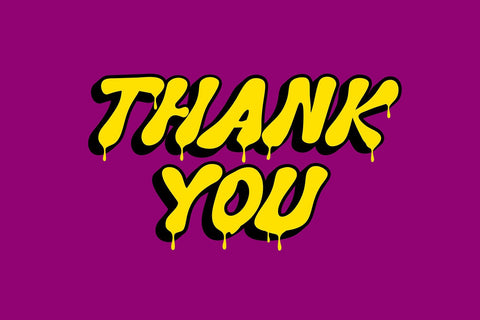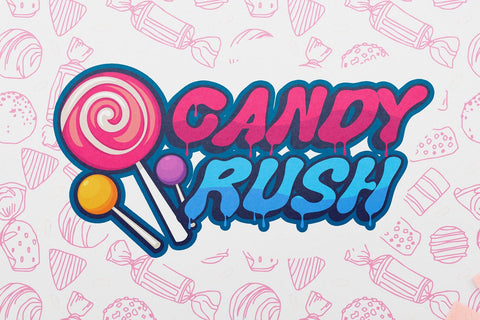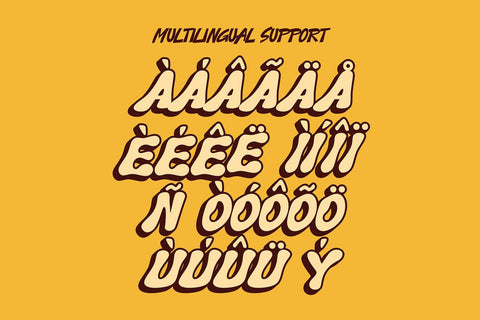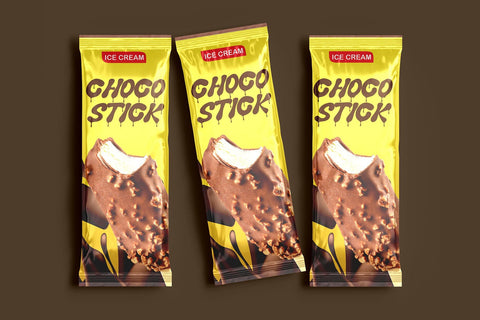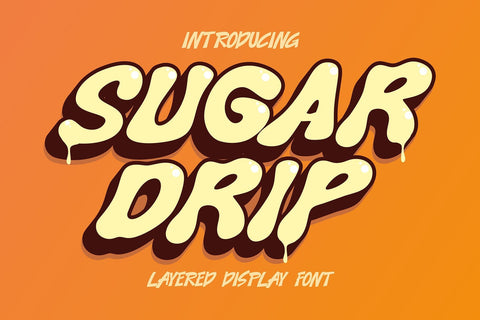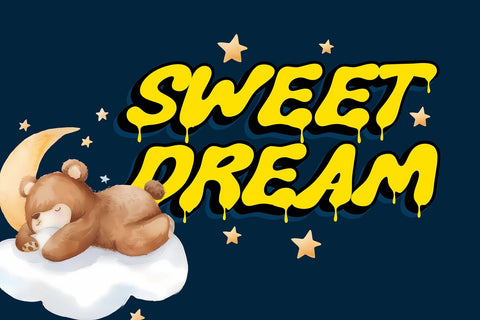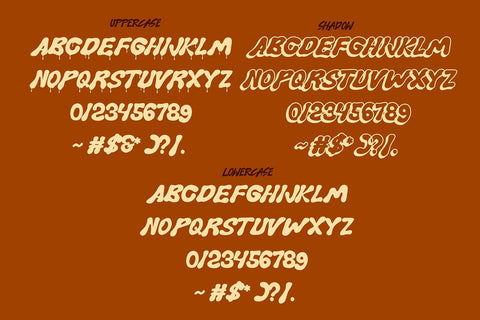
Sugar Drip - Dripping Layered Display Font
"Sugar Drip is a dripping layered display font that brings a playful, bold, and slightly edgy style to your designs. With its unique dripping effect, this font mimics the look of melting liquid or sweet syrup, creating a dynamic and eye-catching visual. The layered design allows for creative combinations, enabling you to mix and match different elements to achieve the perfect effect. Whether you want a fun, vibrant look or a more dramatic, dripping style, Sugar Drip offers versatility and flexibility. It’s ideal for posters, logos, packaging, event designs, and any project that requires a bold, striking, and creative touch. Perfect for themes like candy, desserts, Halloween, or anything that needs a gooey, melting feel."
- 3d Cute Display Characters